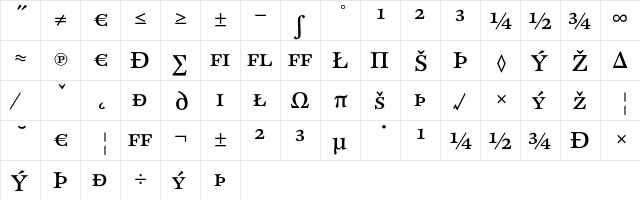
CliffordSix CapsExpert
Design Context for CliffordSix Typeface
CliffordSix offers clean, dependable letterforms without strong stylistic allegiance, making it a practical choice for designers who need flexibility.